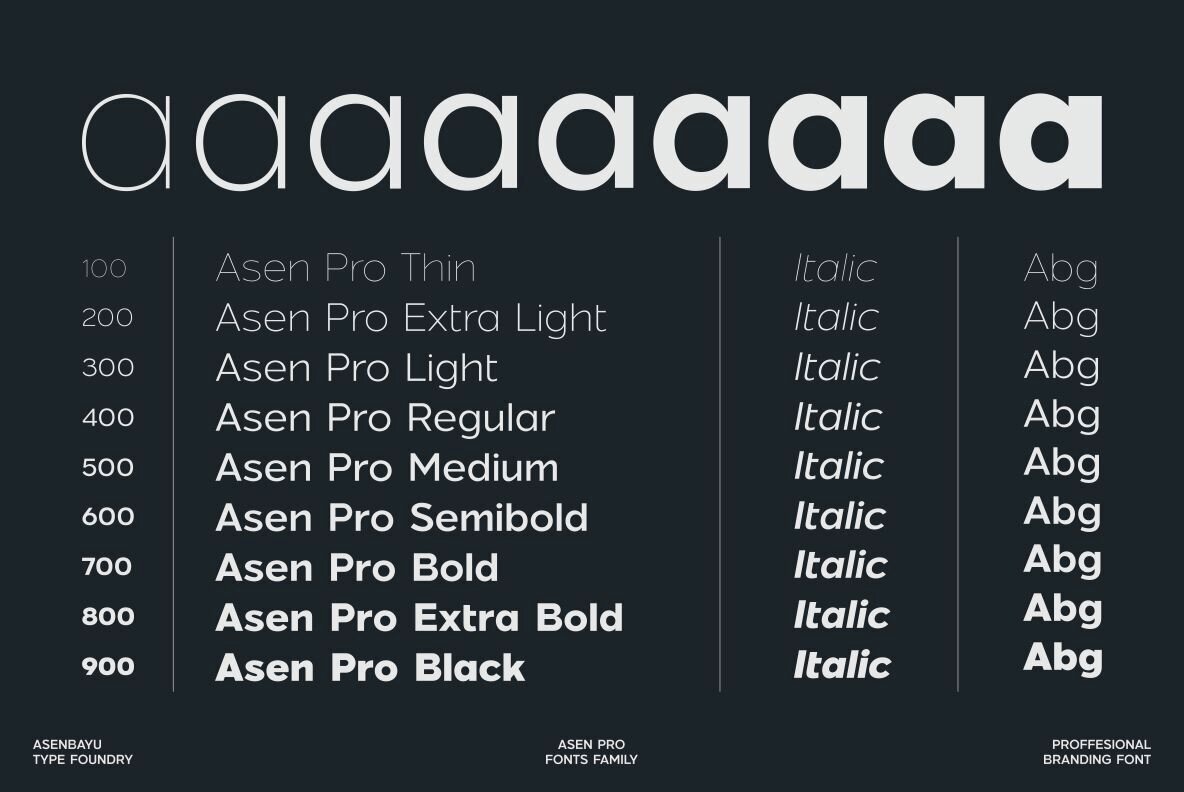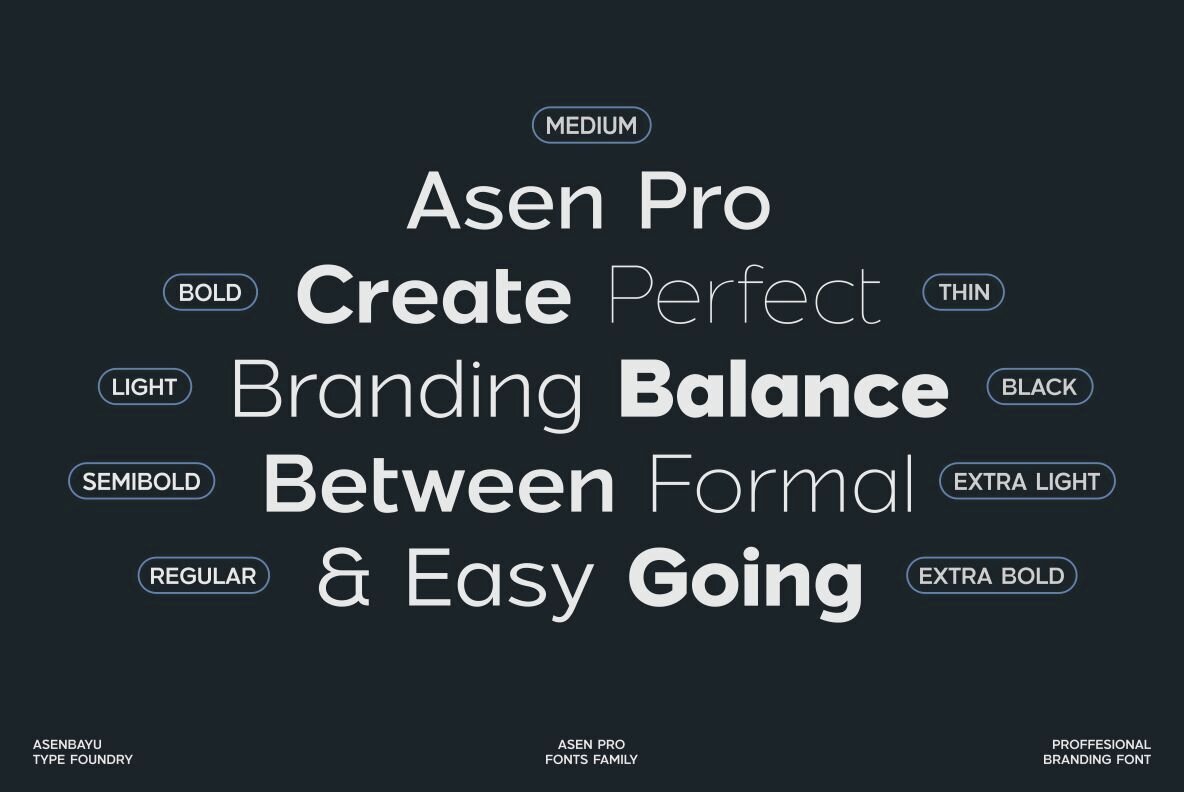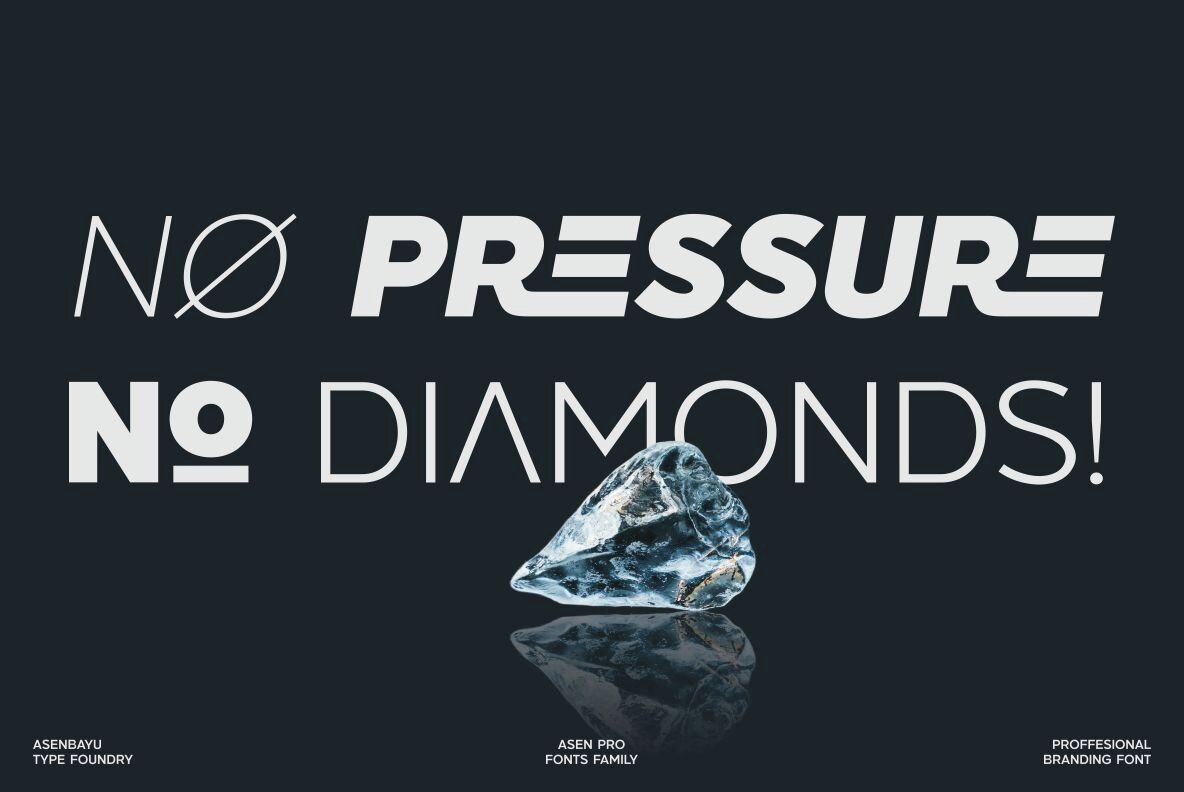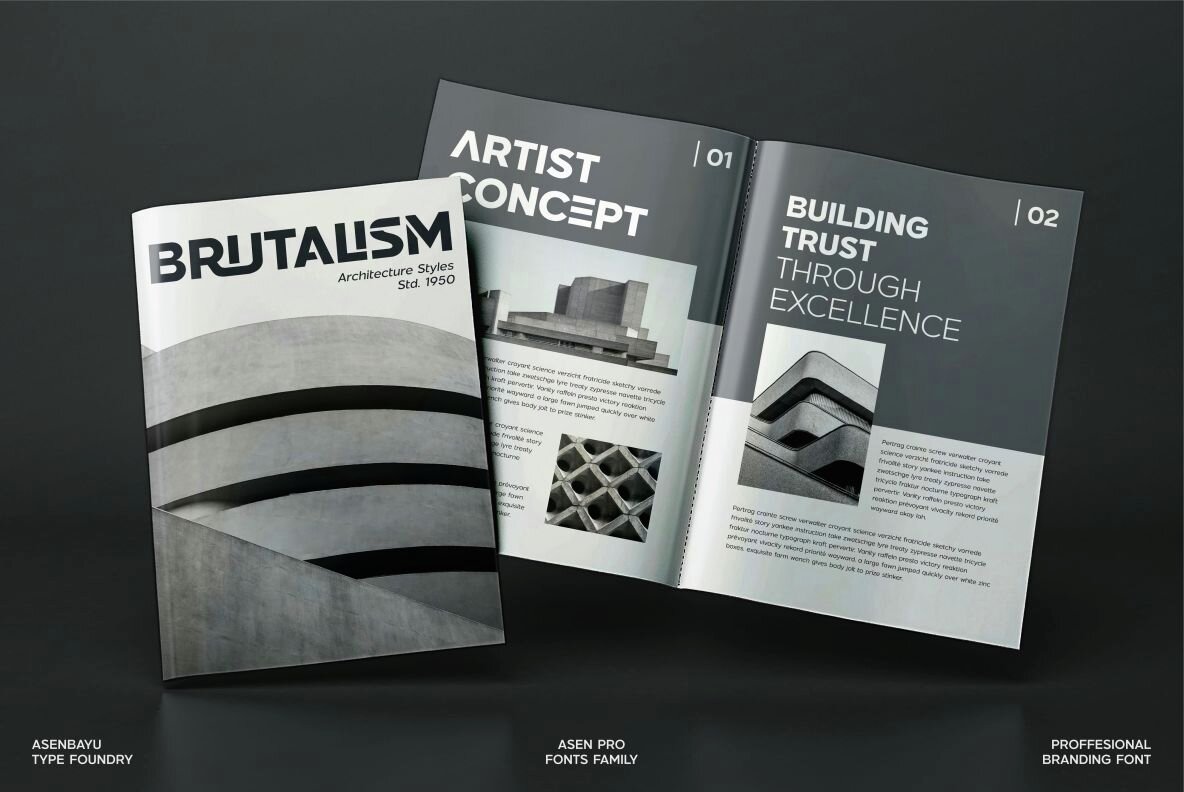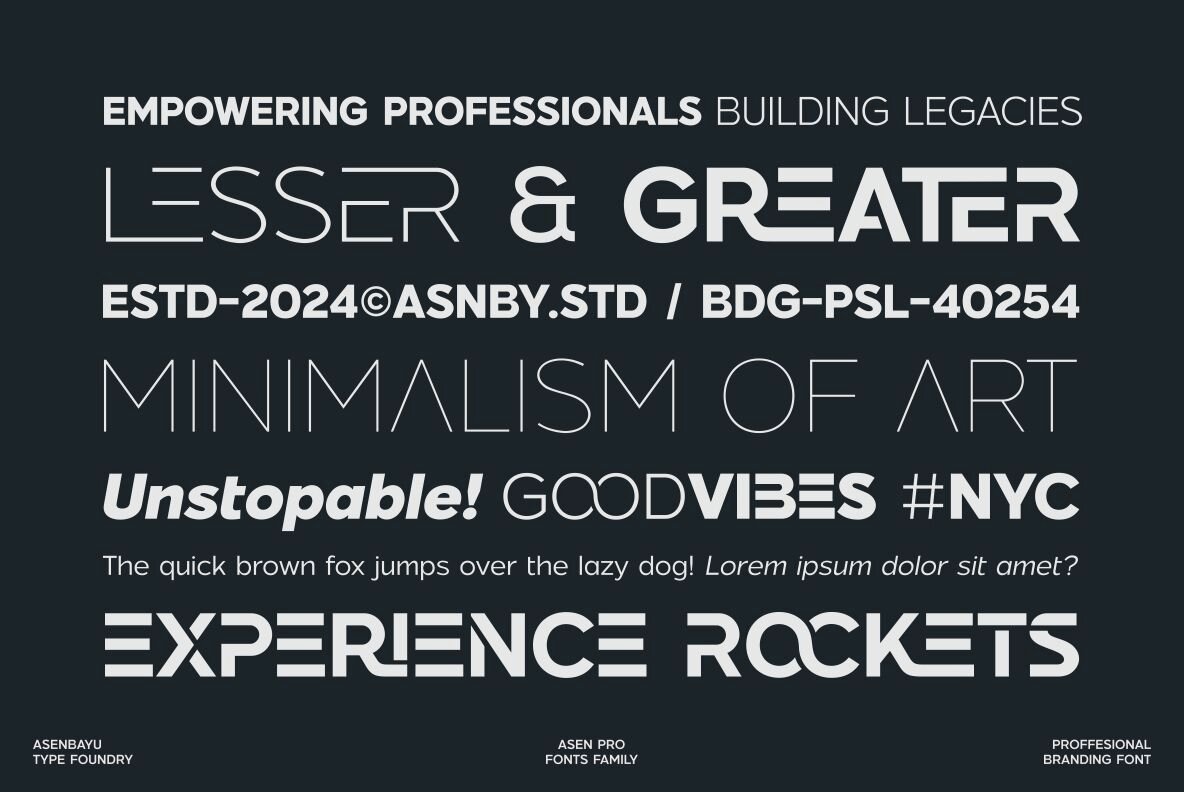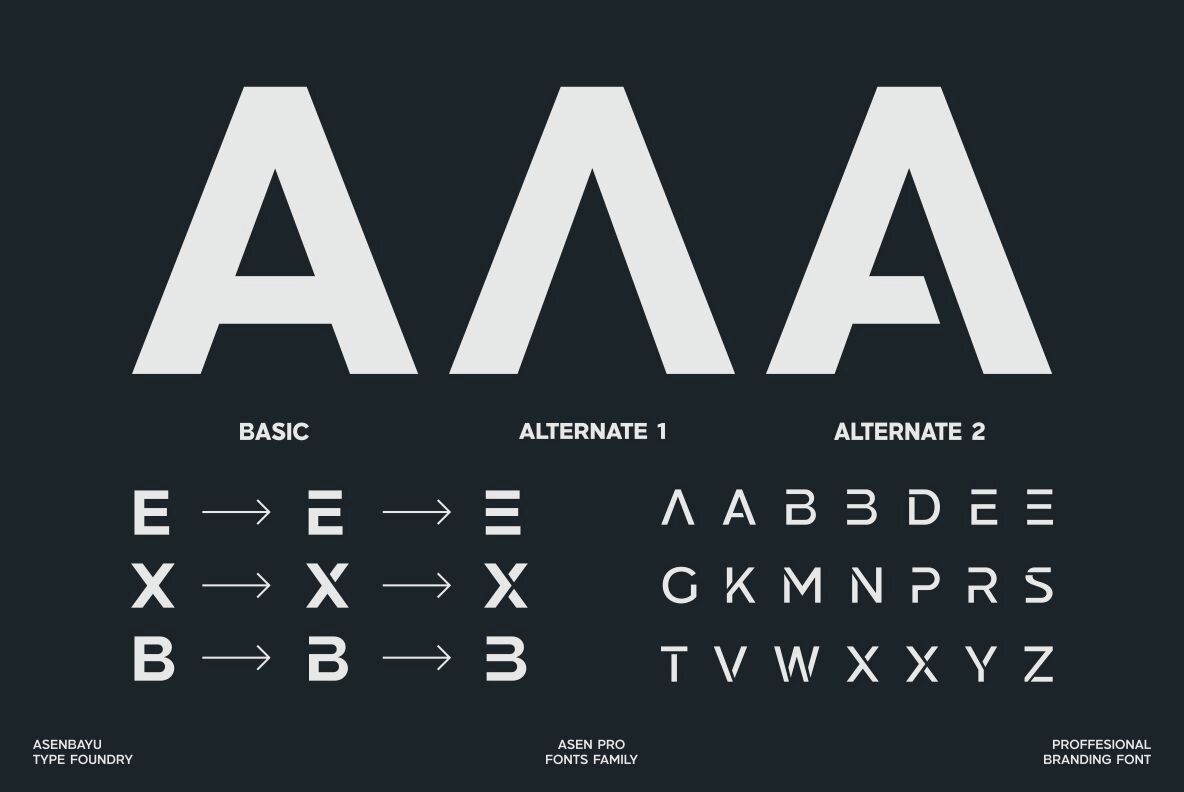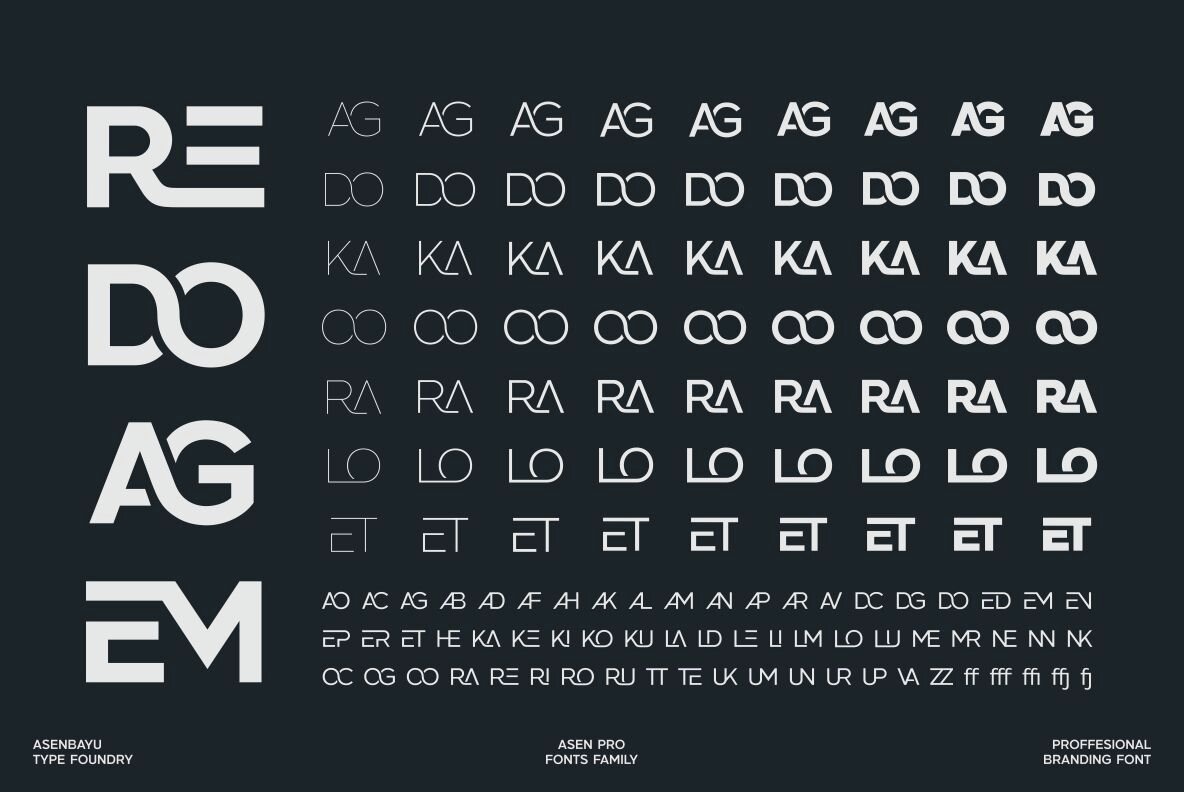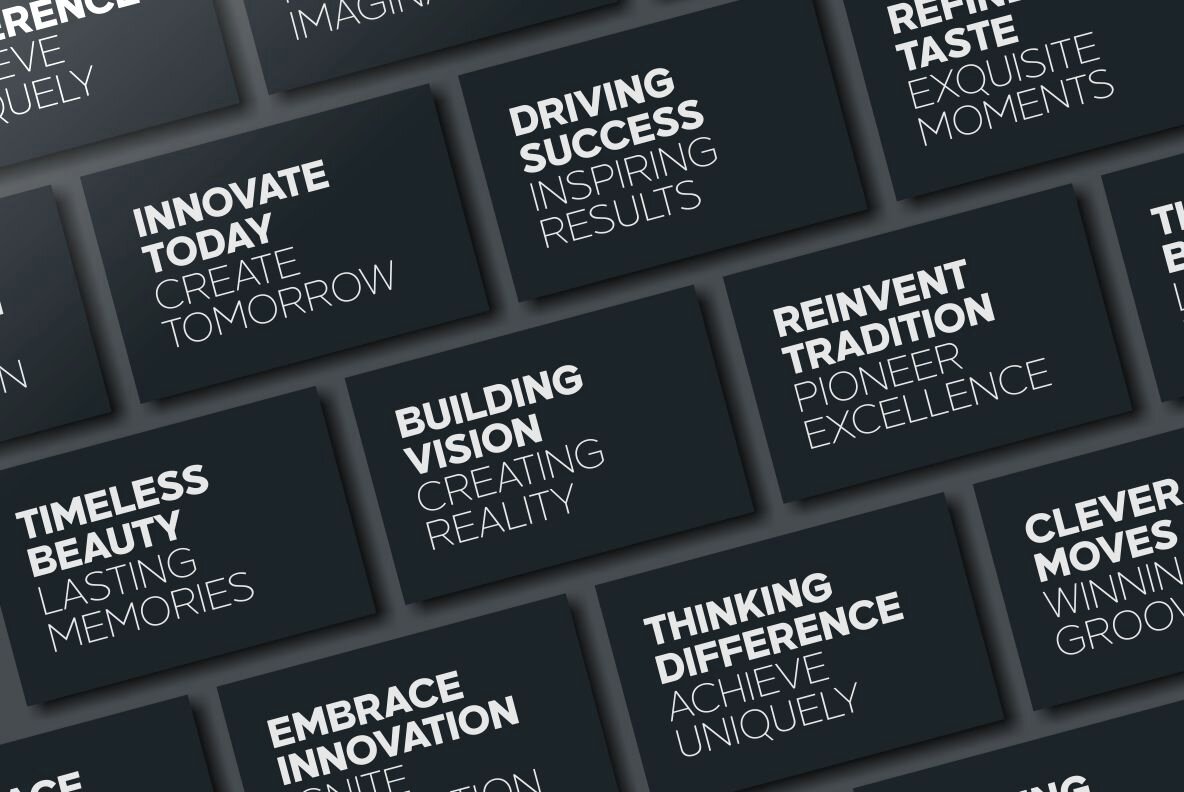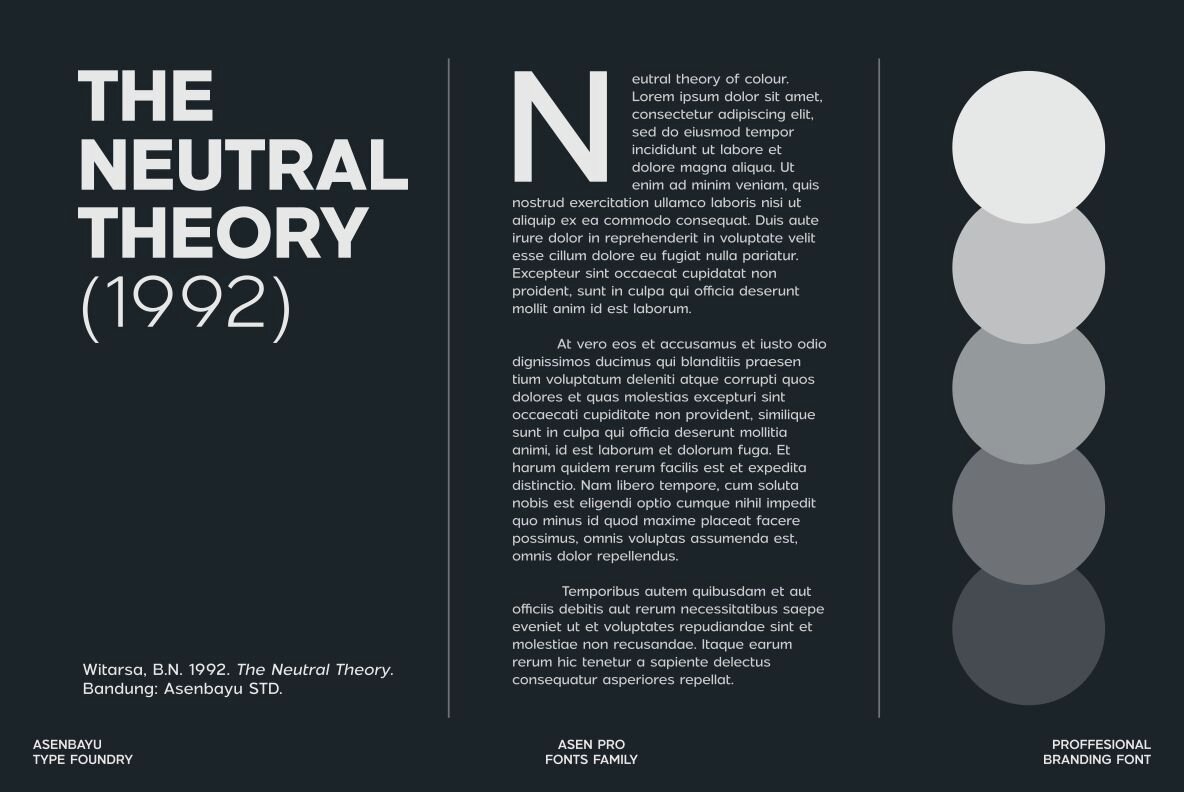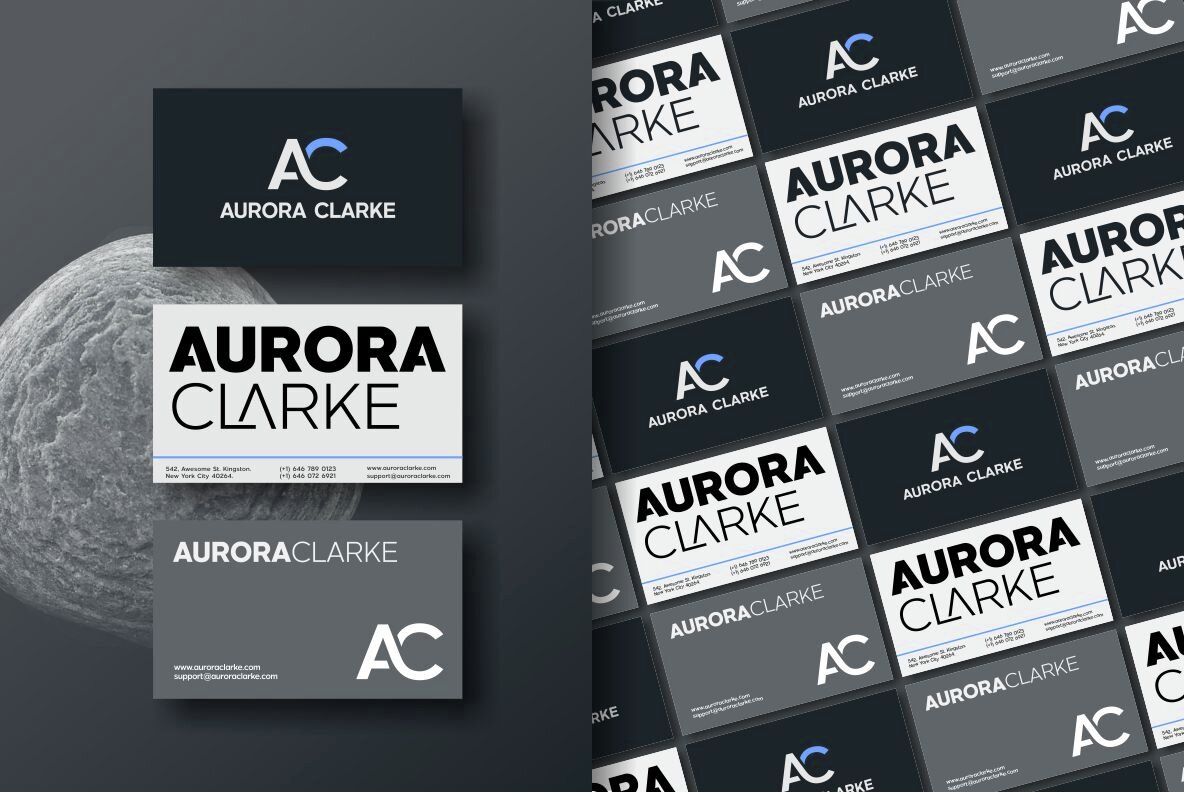
Asen Pro Font
This font is a contemporary geometric sans-serif typeface characterized by clean lines, simple and symmetrical shapes, and a universally appealing aesthetic. It is perfect for modern design projects that require clarity and a touch of sophistication, while its bold presence and uniform stroke width make it ideal for headlines, branding, and minimalist displays.